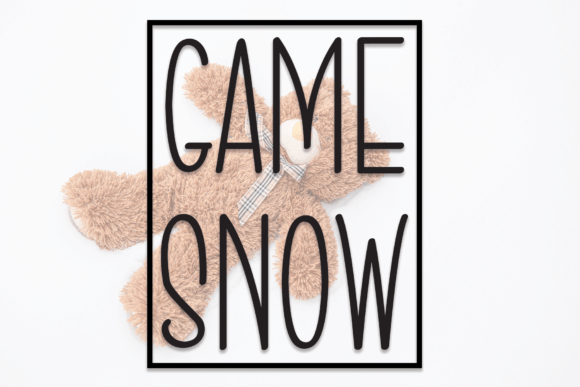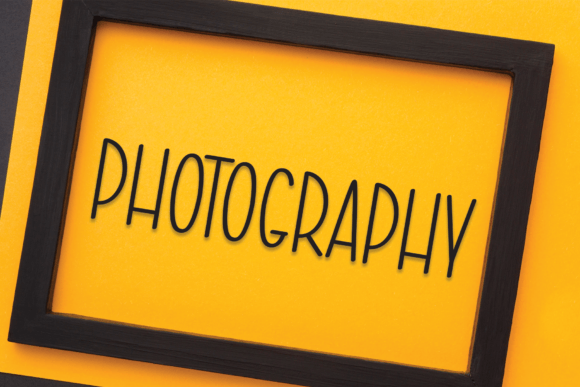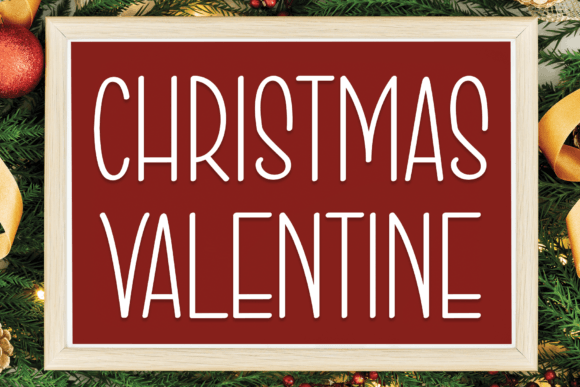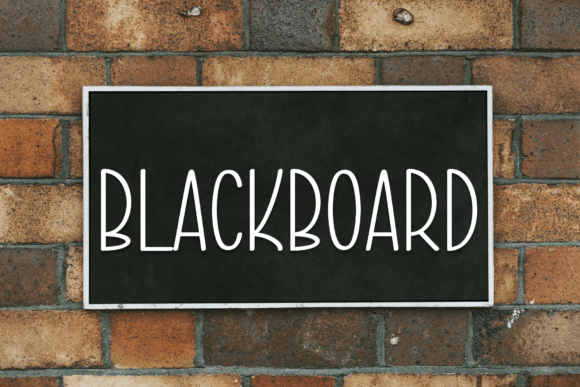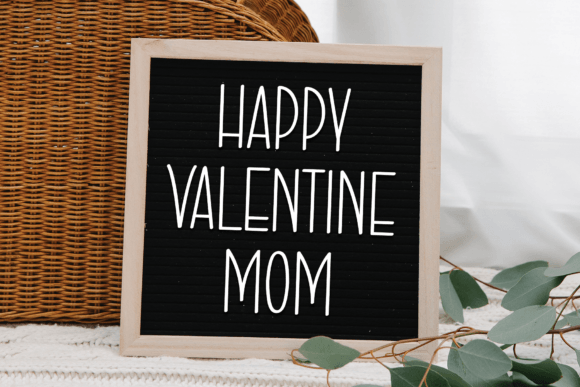
Game Snow Font
Game Snow Handwritten Font – Fun and Friendly Typeface
The Game Snow Handwritten Font is a playful and versatile script typeface designed to bring charm and warmth to your creative projects. With its casual handwritten strokes and smooth flow, it works beautifully in both print and digital designs. Whether you are making greeting cards, crafts, or digital graphics, this font adds a personal and cheerful touch.
A Handwritten Script with Style
The Game Snow Handwritten Font blends fun curves with a natural handwritten look. Its friendly style gives your designs approachability, while its neat proportions keep it clear and easy to read. Because of this balance, it is perfect for both personal and professional creative projects.
Perfect for Crafts and Greeting Cards
One of the most popular uses of the Game Snow Handwritten Font is in greeting cards and handmade crafts. Its cheerful strokes make personal notes more heartfelt, while its playful energy enhances posters, invitations, and thank-you cards. This adaptability makes it a go-to font for creative tasks.
Versatility Across Creative Projects
The Game Snow Handwritten Font adapts to many applications. From product packaging and branding to social media content and DIY projects, it brings a fun handwritten feel. Its playful yet neat style ensures it can be used confidently in both casual and professional contexts.
Why Designers Love Game Snow Font
Designers love the Game Snow HandwrittenFont for its mix of fun and usability. It has enough personality to make designs unique, while its readability keeps it practical. This combination makes it a reliable choice for many types of design work.
In summary, the Game Snow HandwrittenFont is a fun, friendly, and versatile script typeface. With its smooth handwritten strokes, easy installation, and wide usability, it is perfect for greeting cards, crafts, posters, and branding. Don’t miss the chance to download Game Snow HandwrittenFont and add playful energy to your next project.